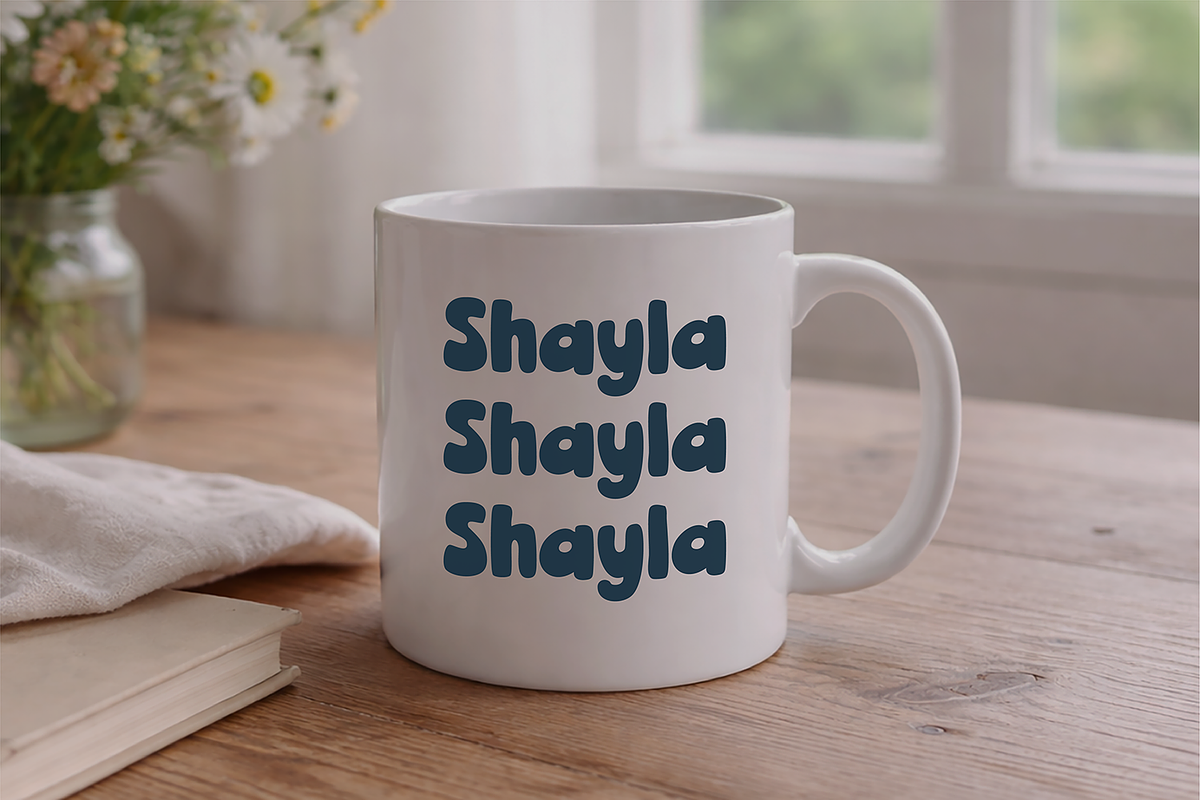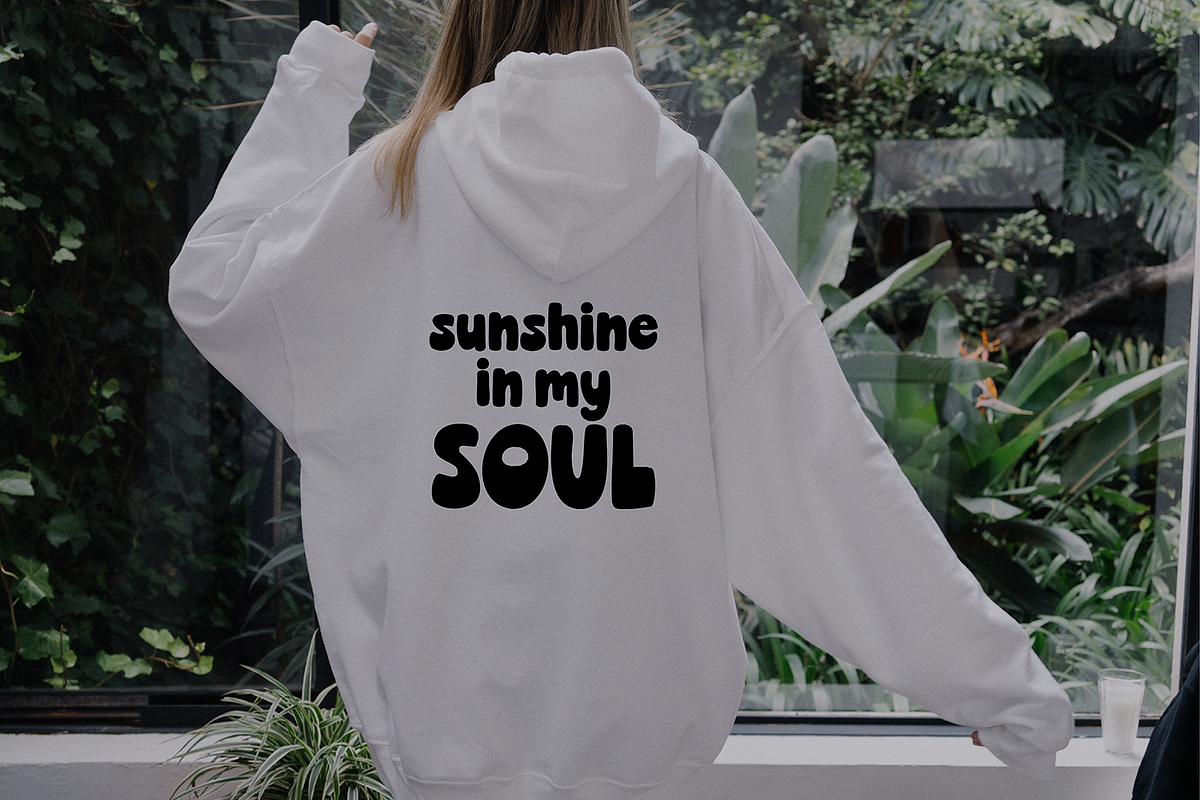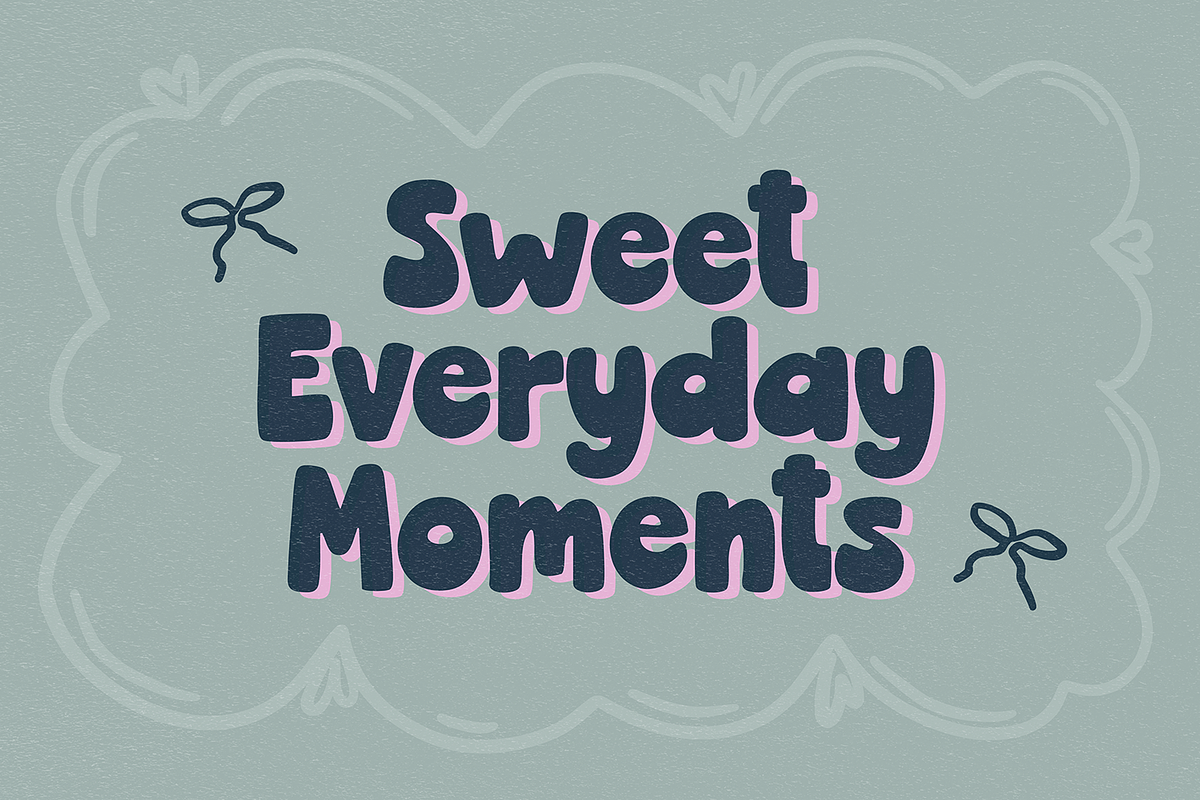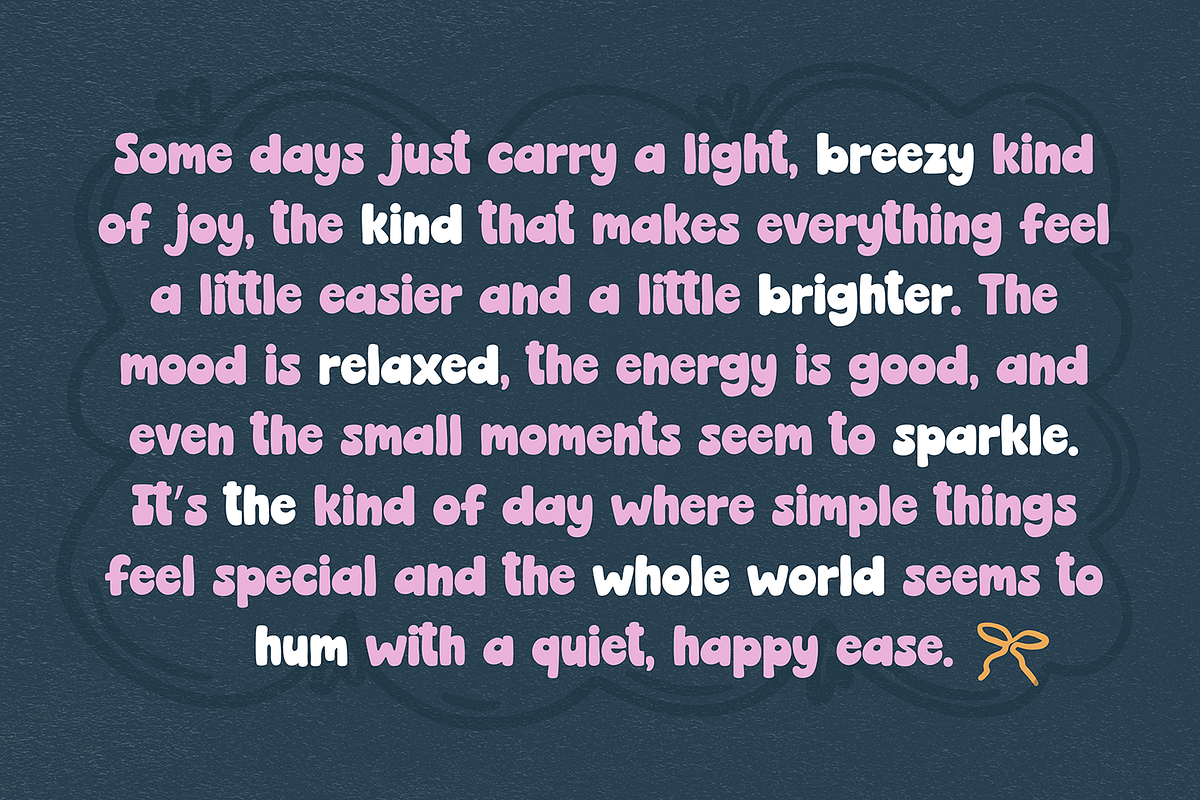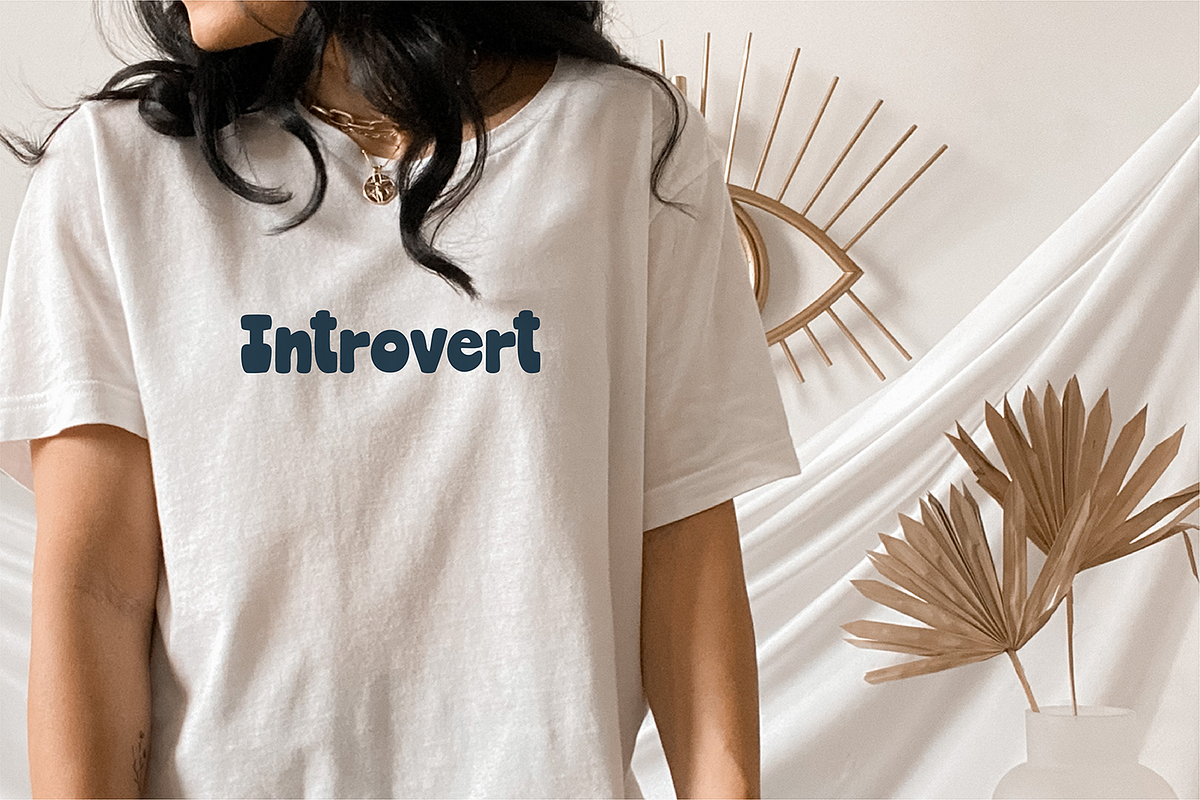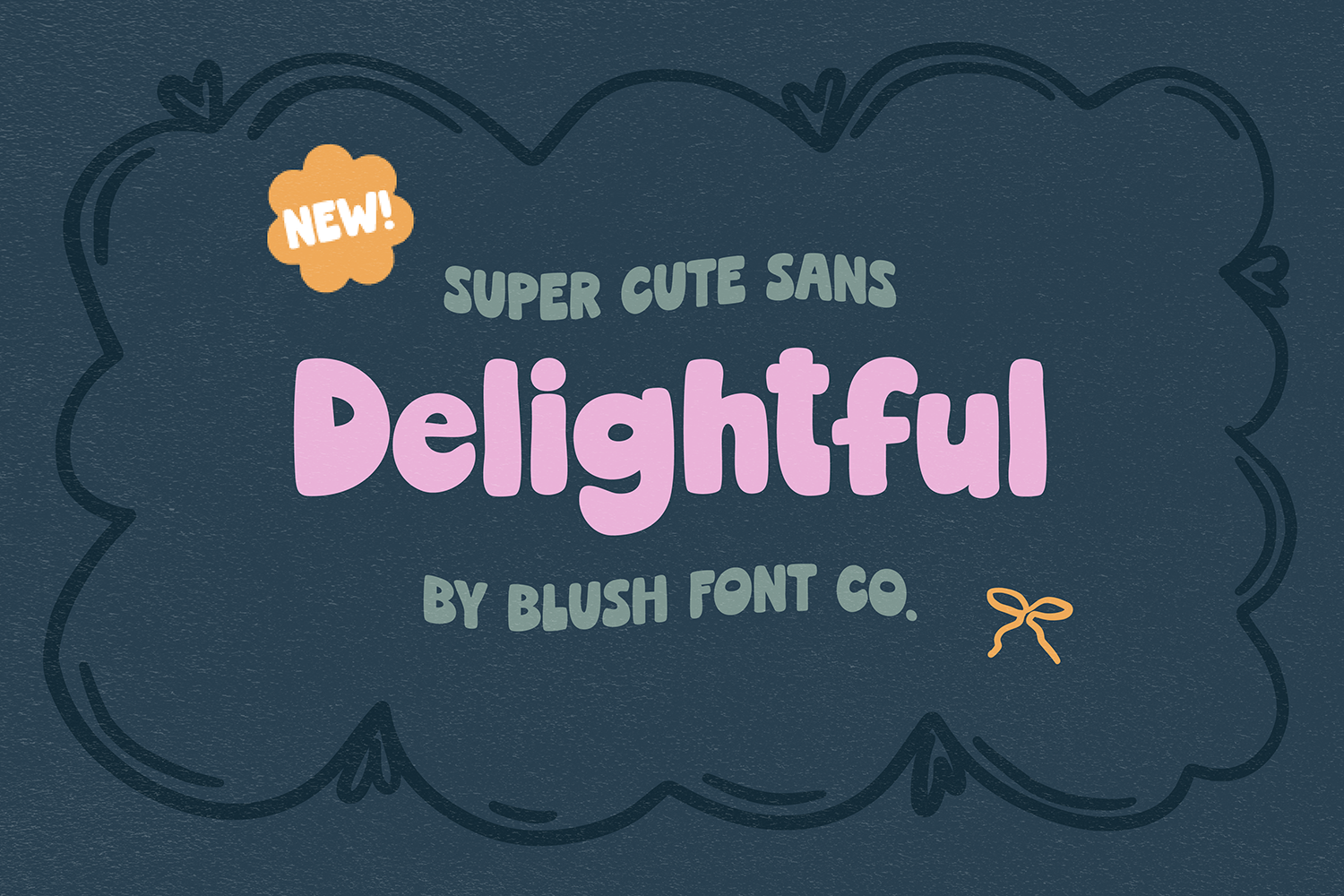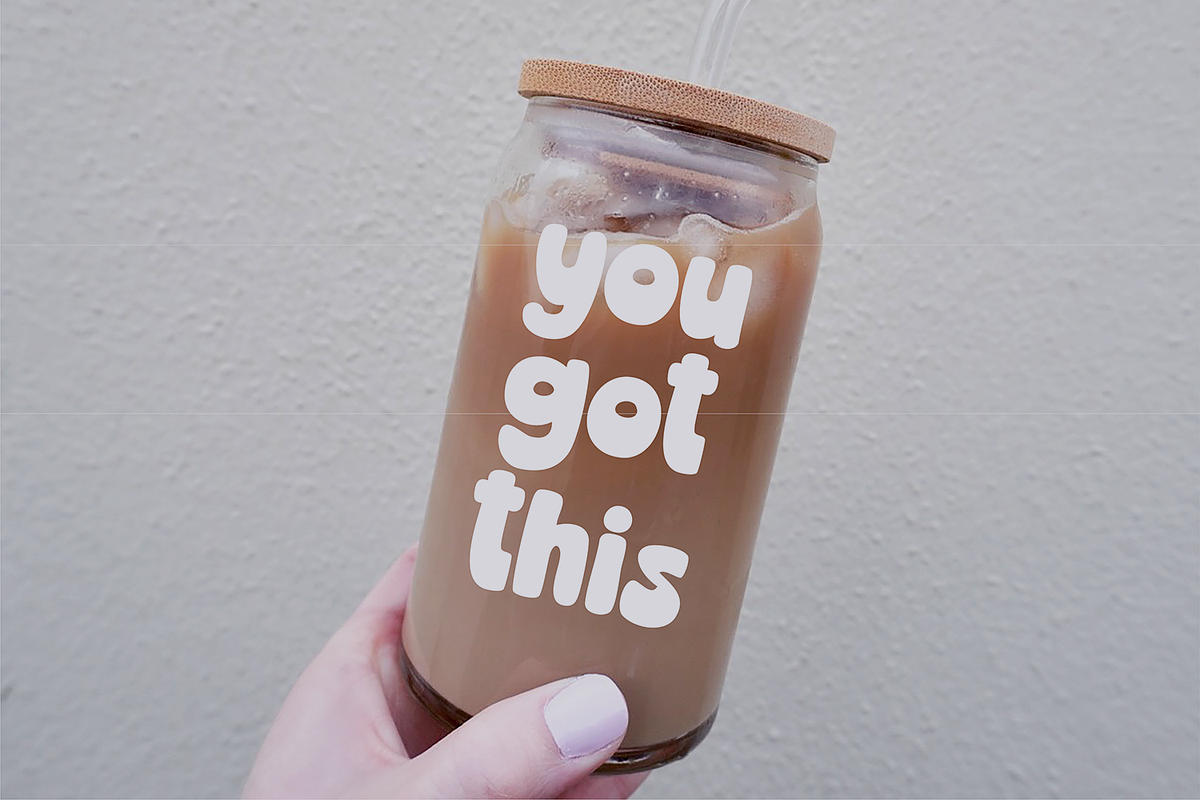
DELIGHTFUL Bold and Fun Sans Font
"Delightful" a chunky cute display sans font.
This font is a trendy handlettered display font that is perfect for social media or crafty projects. Use it for branding, crafts for decor, invitations, and more!